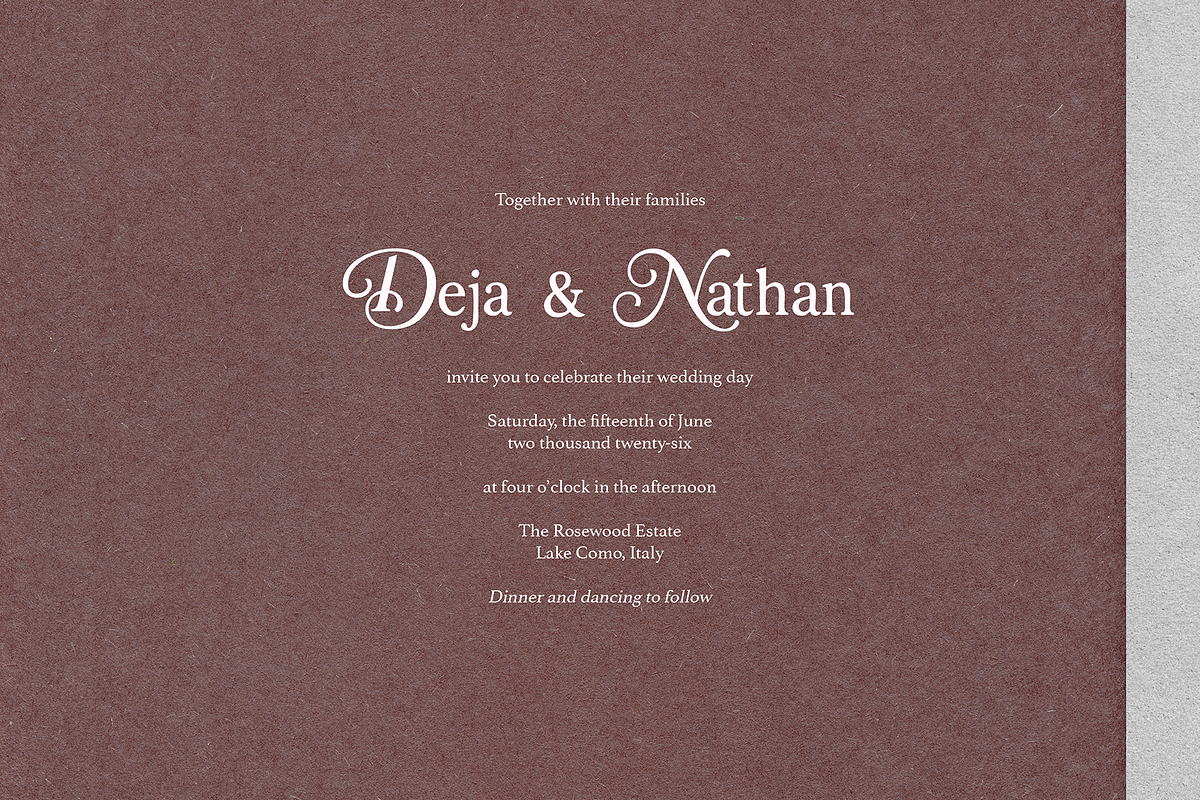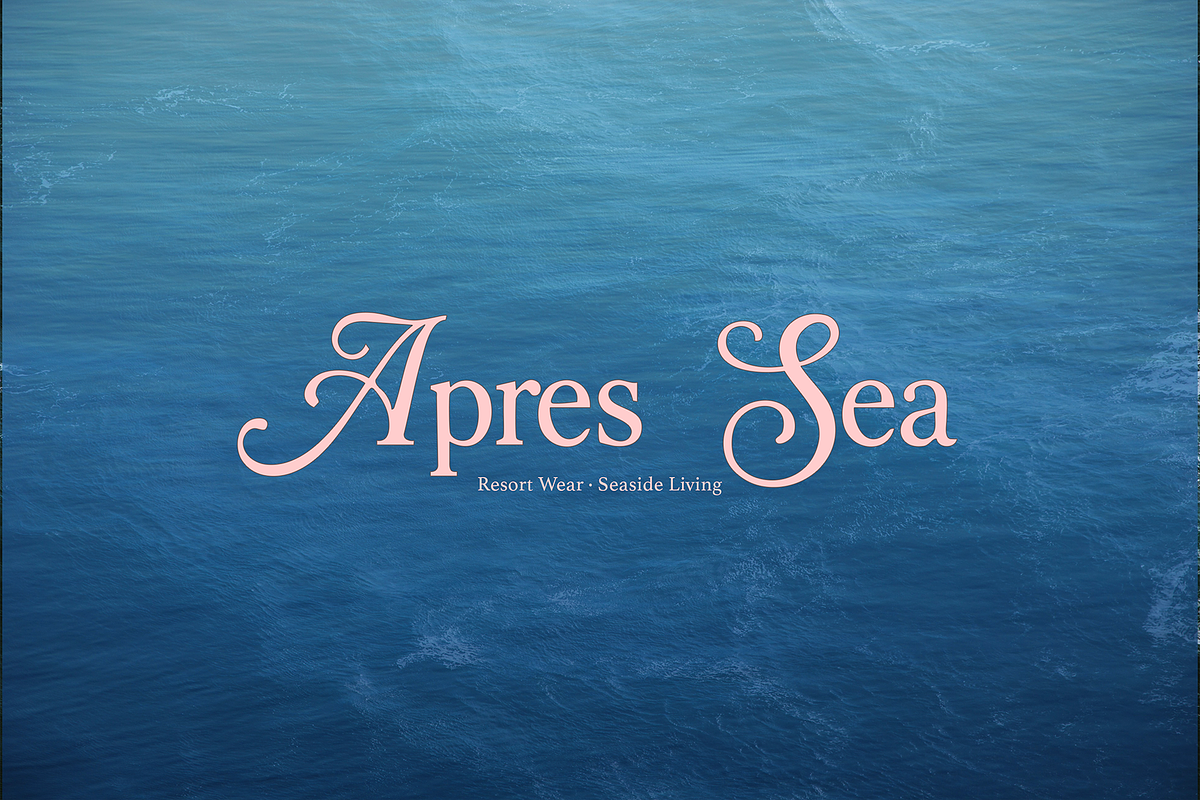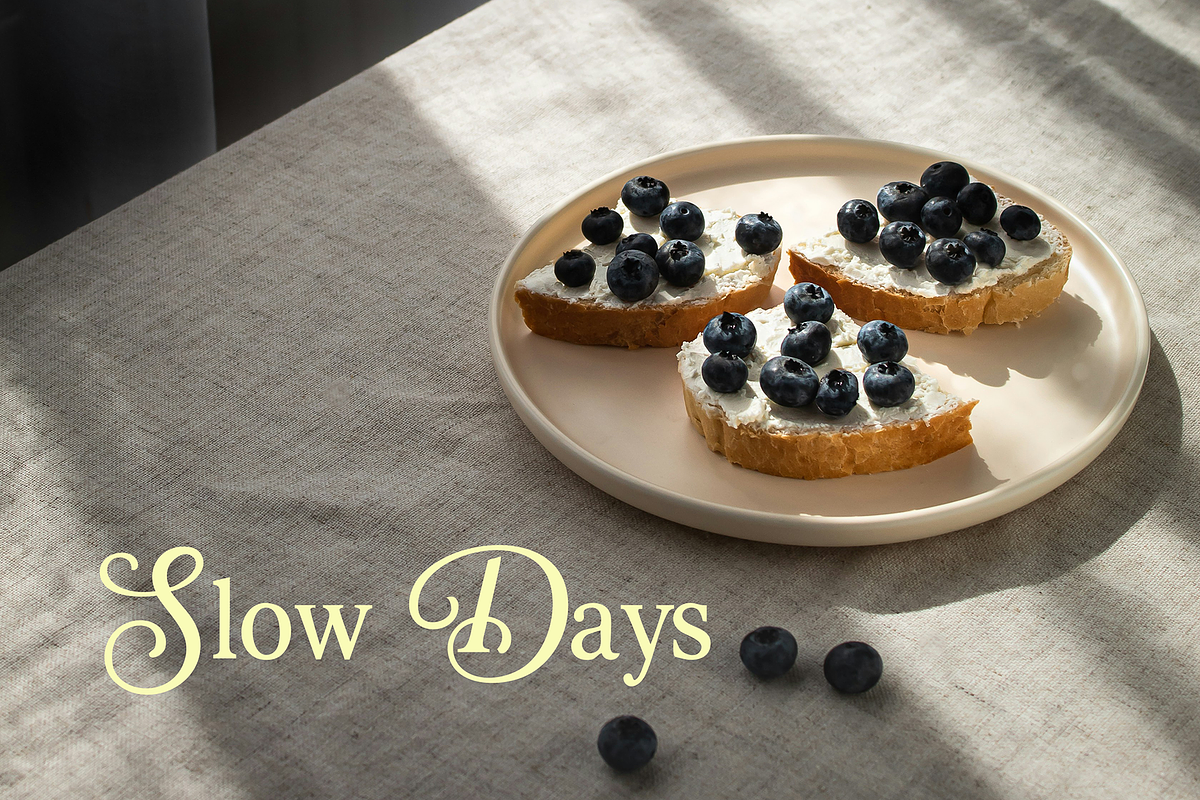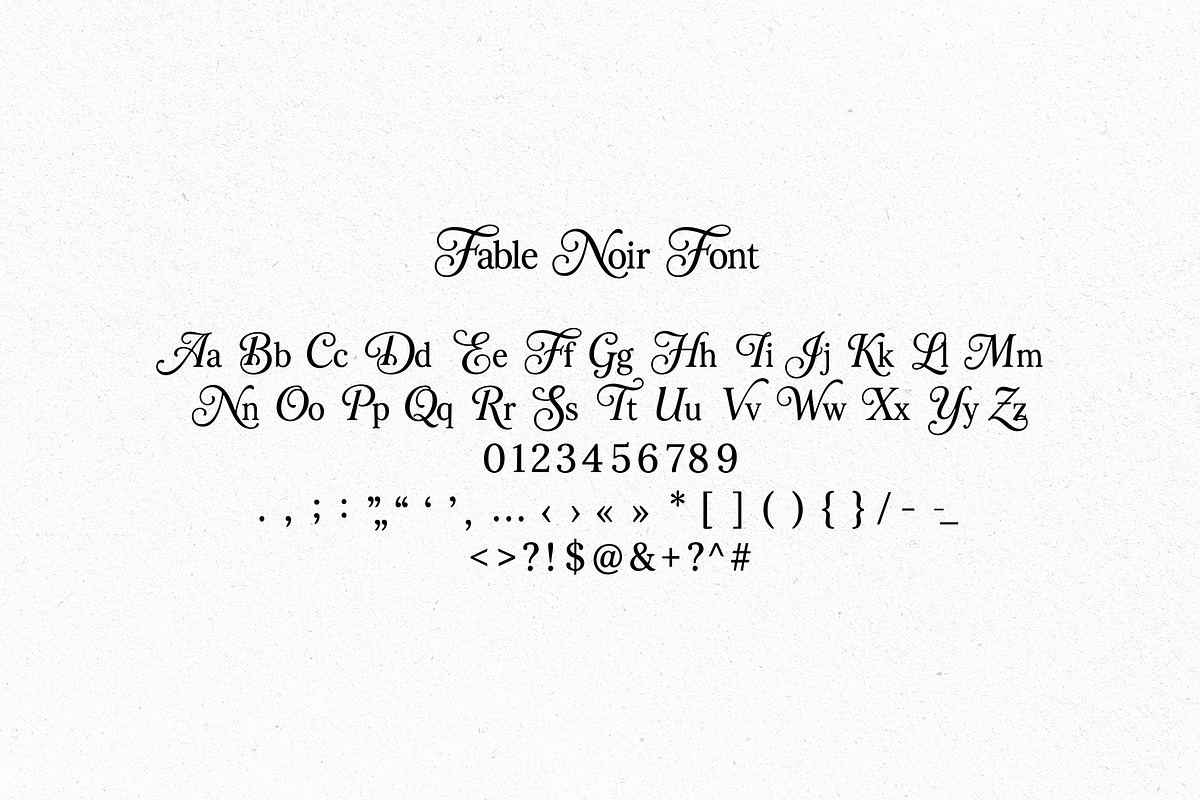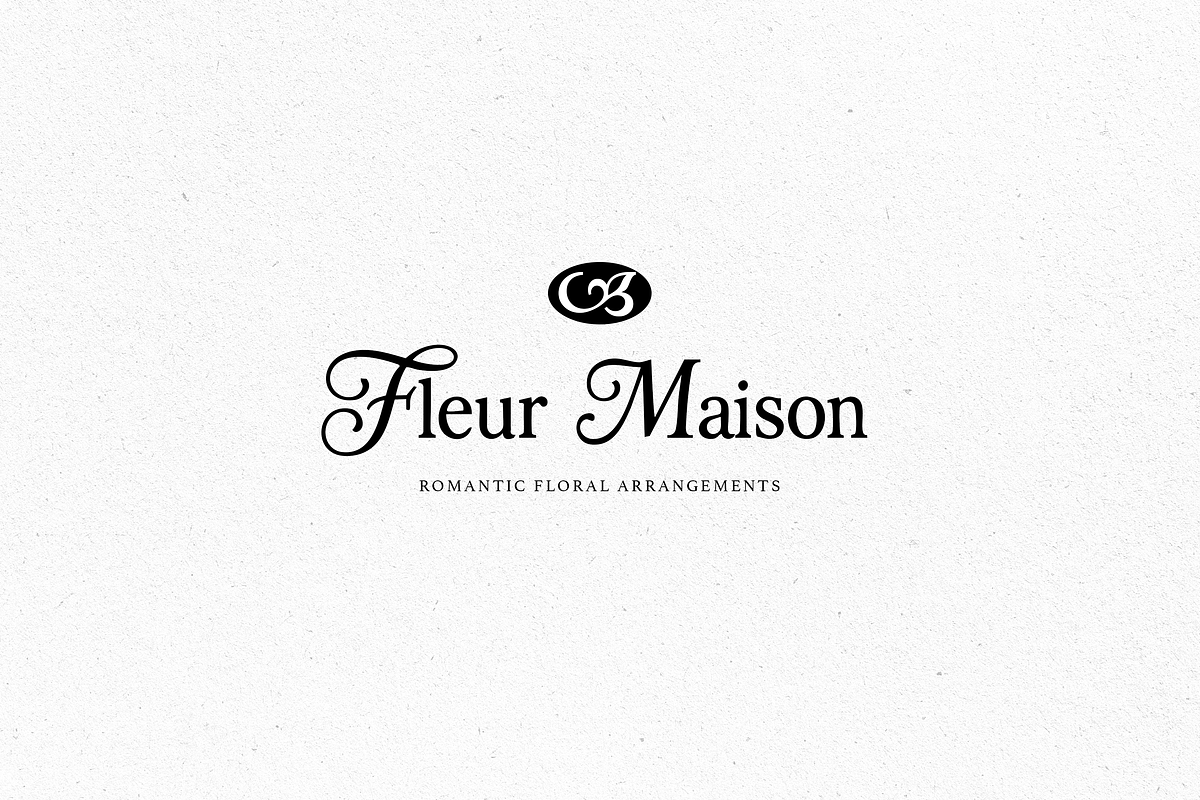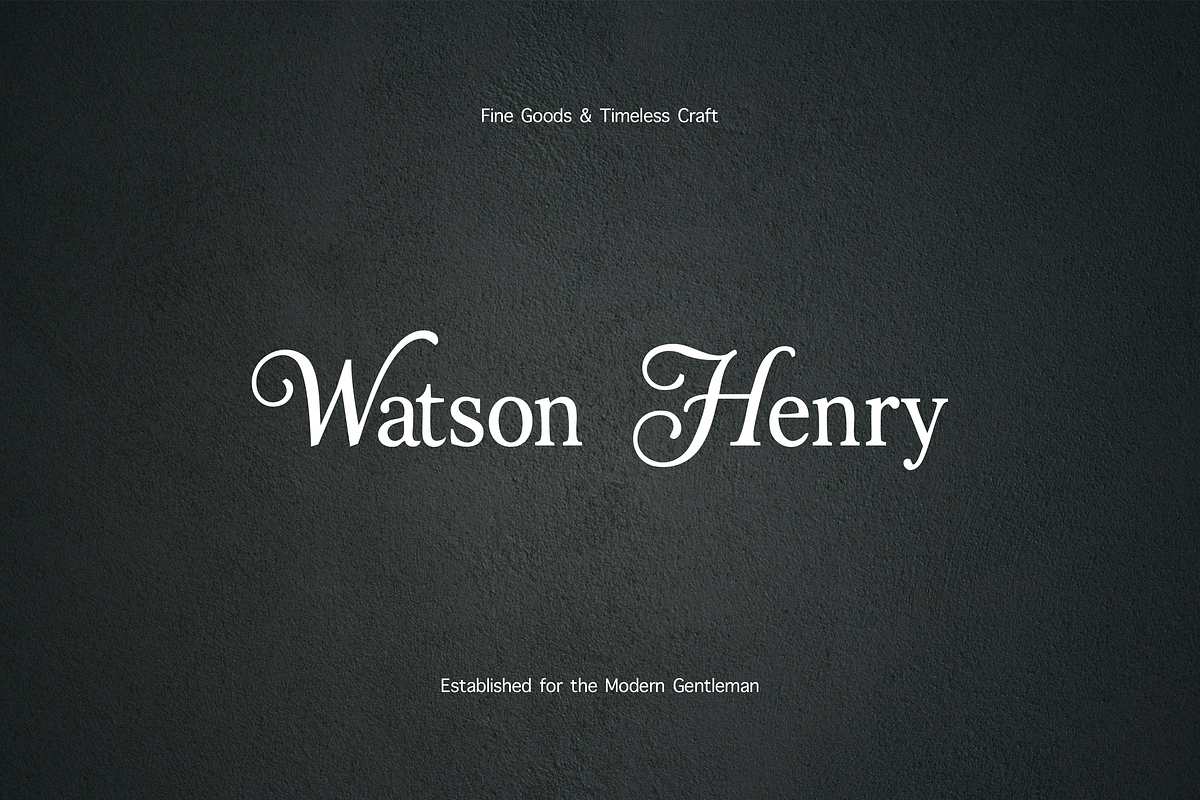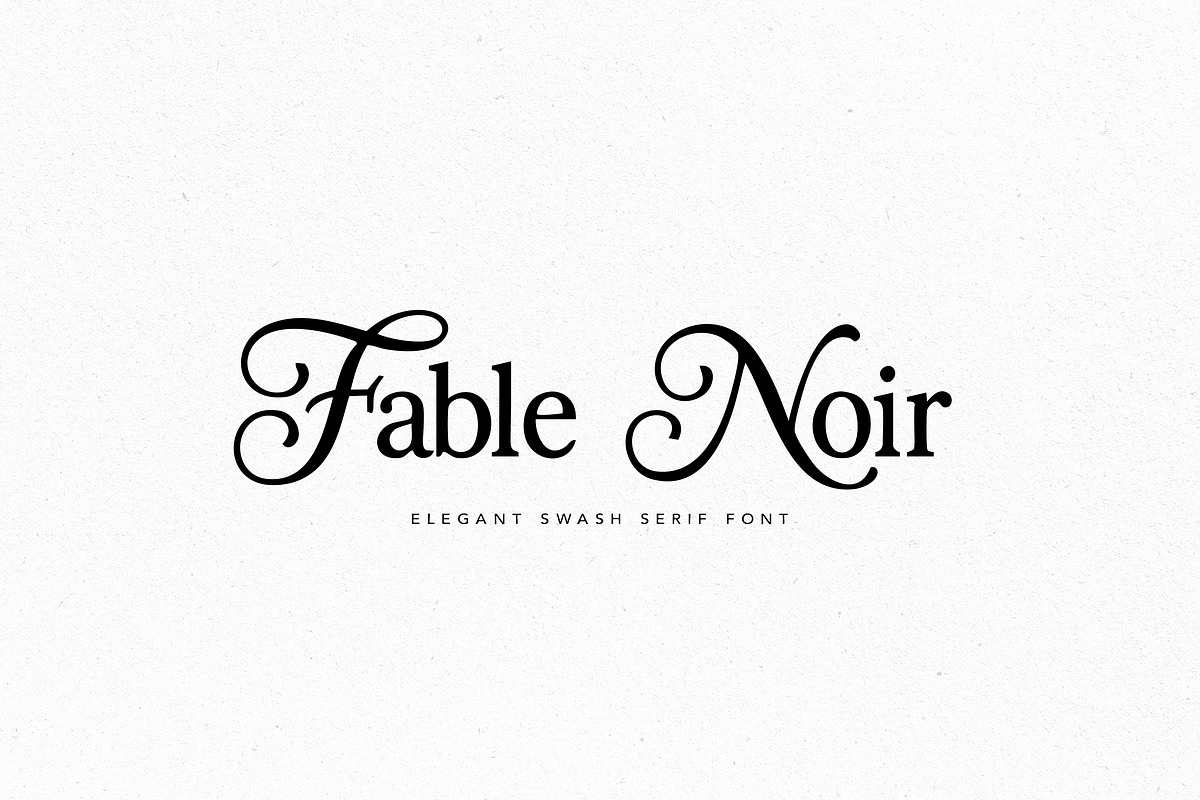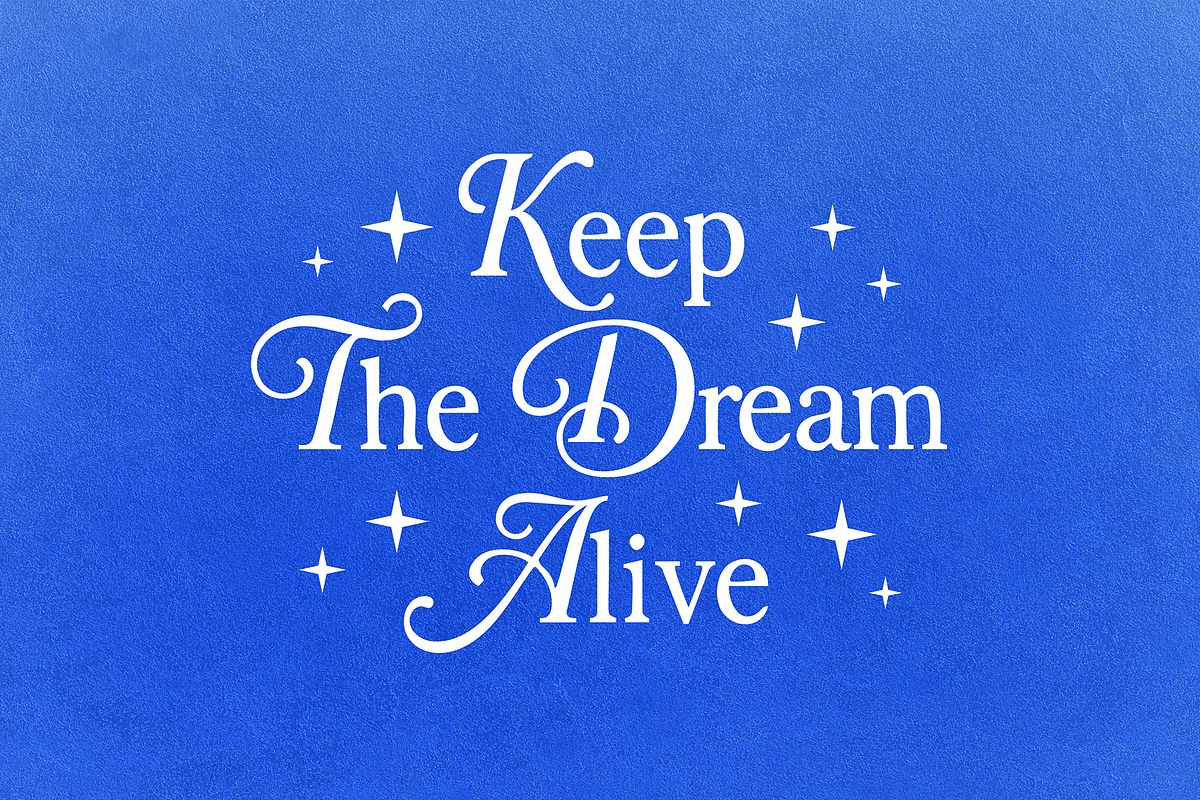
Fable Noir Font
Fable Noir is an elegant swash serif font with romantic curves, graceful flourishes, and a refined vintage feel. Designed for wedding stationery, luxury branding, logos, invitations, packaging, quotes, social media graphics, and elegant design projects.
This font combines decorative uppercase letters with beautiful swashes and clean readable lowercase characters, making it perfect for romantic and high-end visual designs.
Wedding invitations
Bridal stationery
Luxury logos
Boutique branding
Packaging design
Feminine brands
Quotes and posters
Cricut and Canva projects
Social media templates